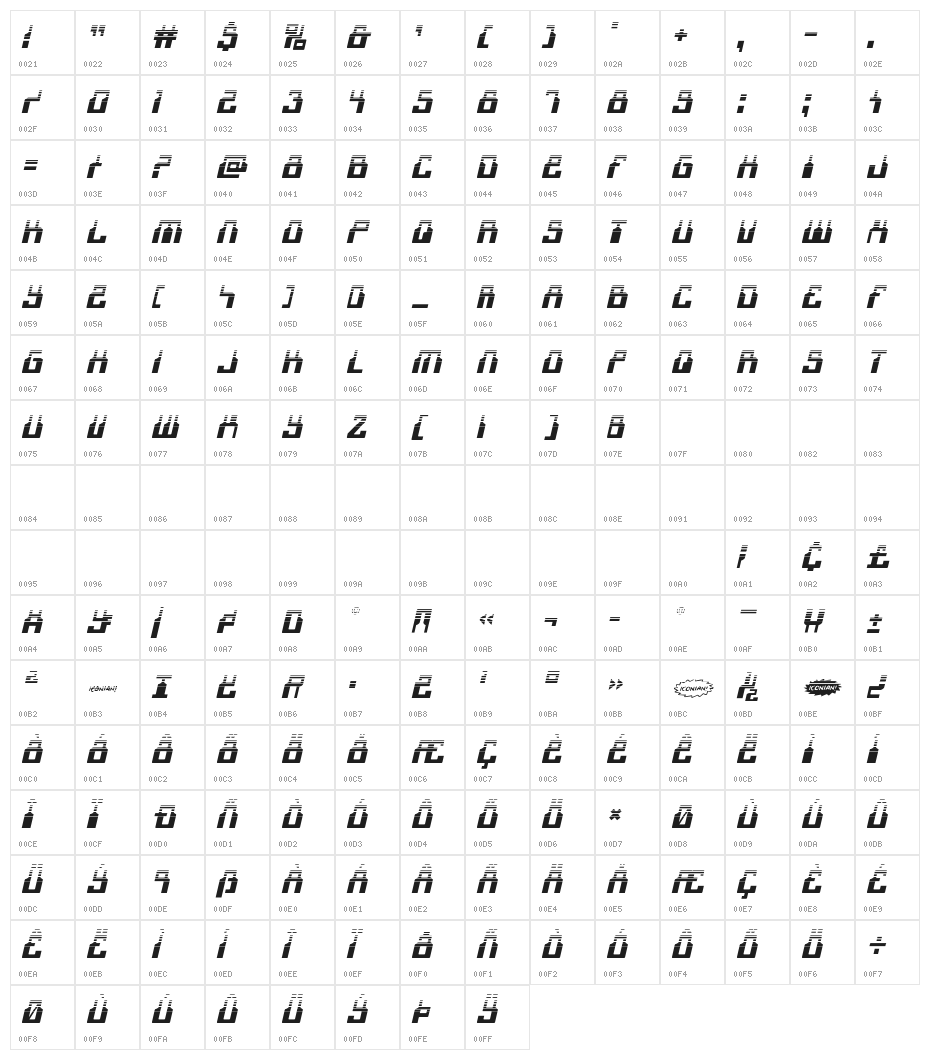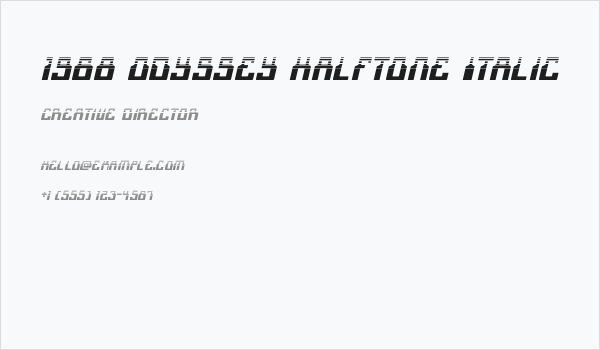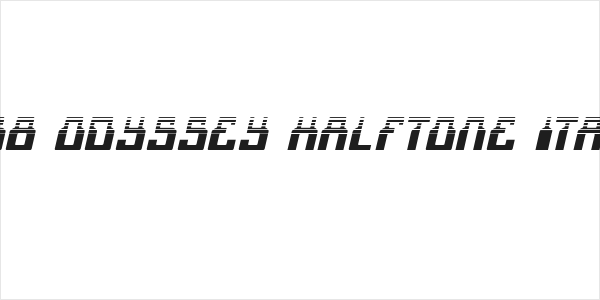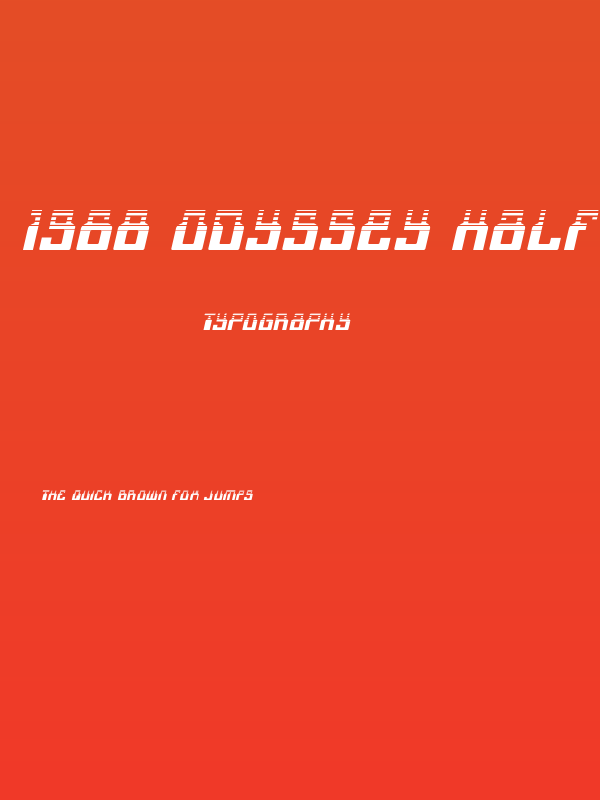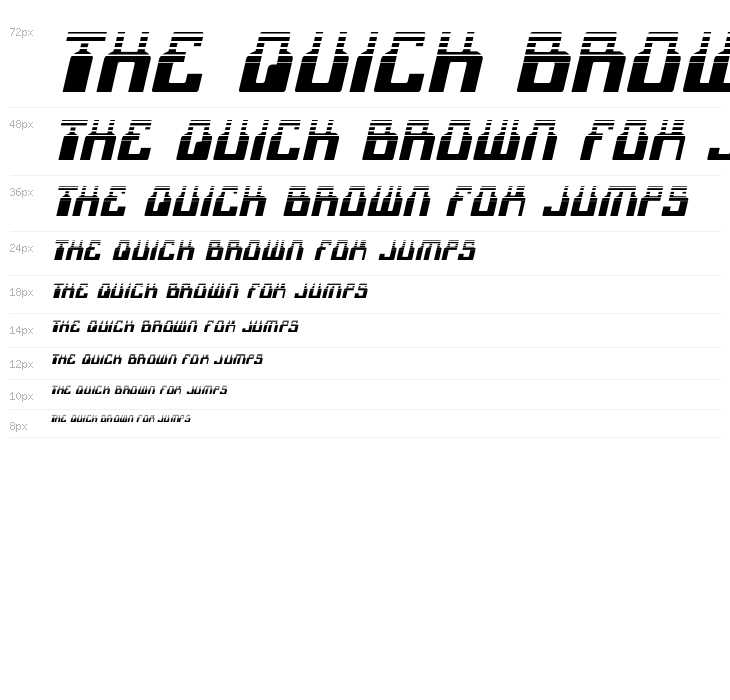
1968 Odyssey Halftone Italic Font
1968 Odyssey Halftone Italic Description
This font features a futuristic and bold design with a distinct halftone effect, giving it a unique, digital appearance. The characters are italicized, adding a dynamic and forward-leaning style. The uppercase and lowercase letters maintain a consistent geometric structure, with sharp angles and clean lines. The numbers and special characters follow the same design principles, ensuring uniformity across all glyphs. The halftone effect is achieved through horizontal lines that create a sense of movement and depth, making it ideal for projects that require a modern and tech-inspired aesthetic.
| Proposed Projects | Ideal for sci-fi themed designs, tech branding, video game titles, and modern posters. |